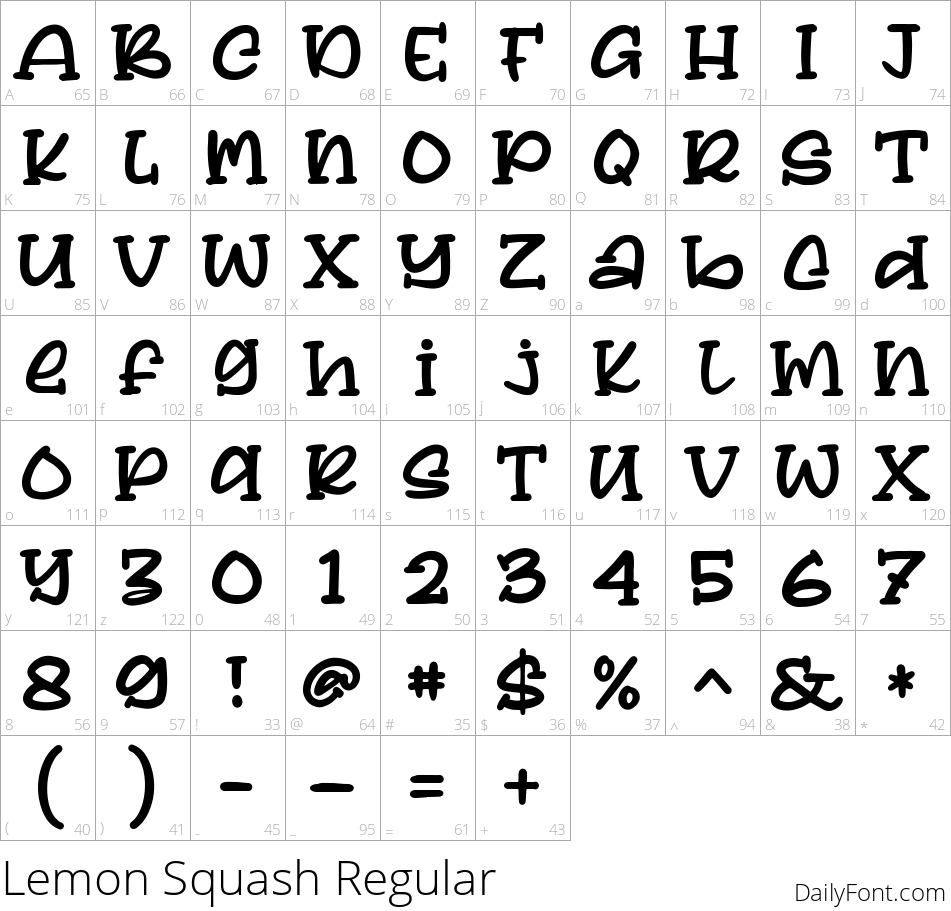
Lemon Squash
Lemon Squash is a playful and vibrant display font that infuses a sense of fun and quirkiness into any design project. Perfect for DIY enthusiasts and creatives, this unique typeface captures attention and elevates your brand by adding an authentic touch. Whether you’re designing greeting cards, posters, or social media graphics, Lemon Squash stands out with its delightful letterforms and cheerful character.
What sets Lemon Squash apart is its versatility. This font can be effortlessly used for various applications, from stylish party invitations to eye-catching signage. Each letter is crafted with meticulous care, ensuring that your creative ideas truly come to life. Embrace the charm of Lemon Squash and watch how it adds personality and flair to your projects, making them not just seen, but remembered. Let your imagination run wild and explore the endless possibilities with this captivating font.